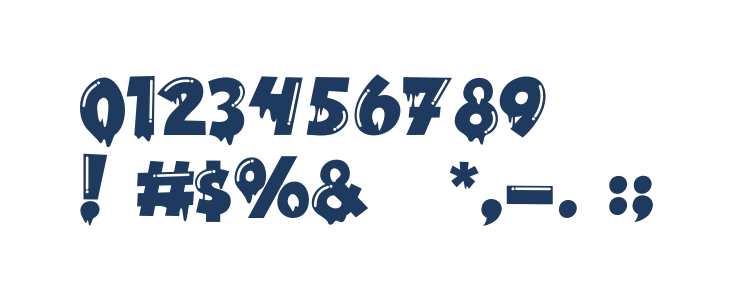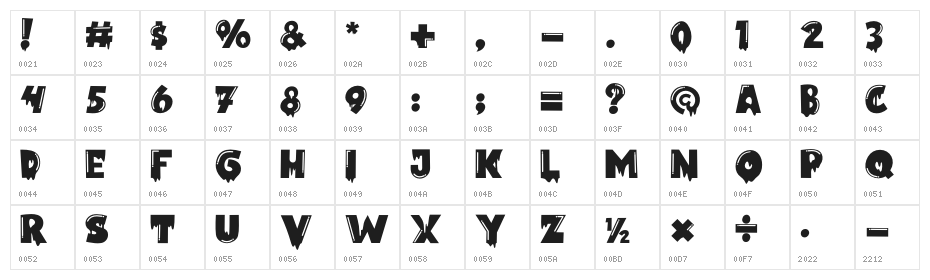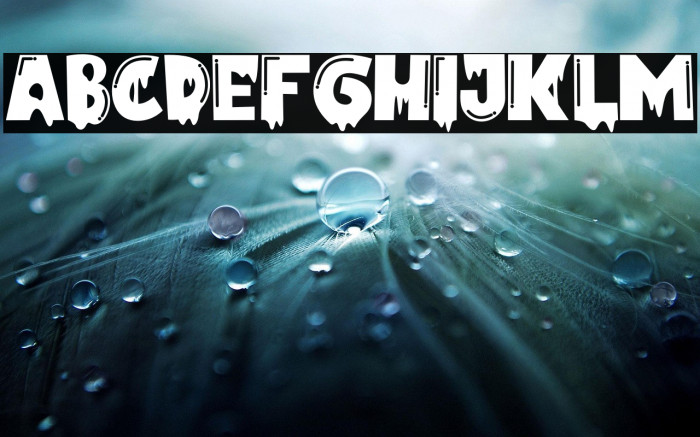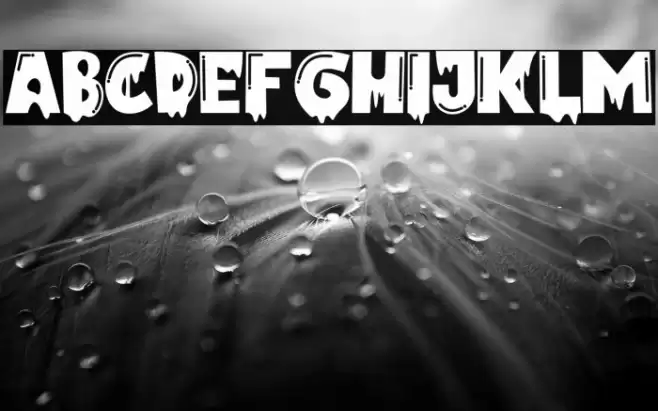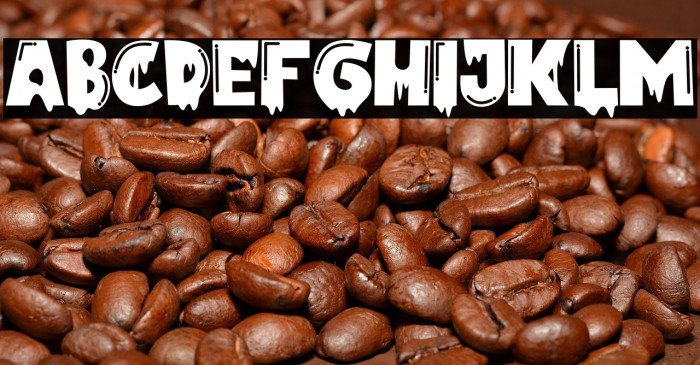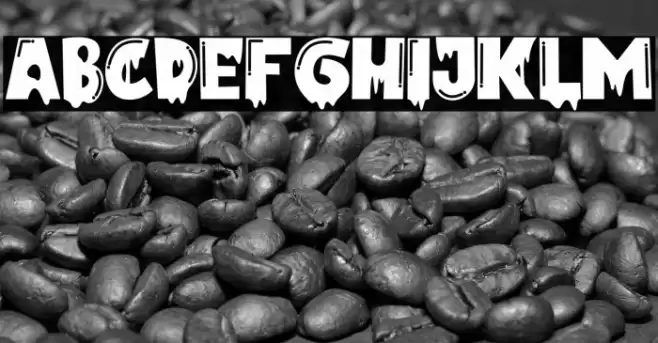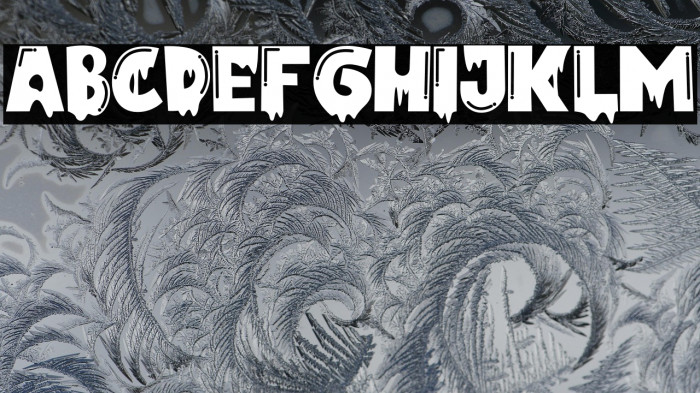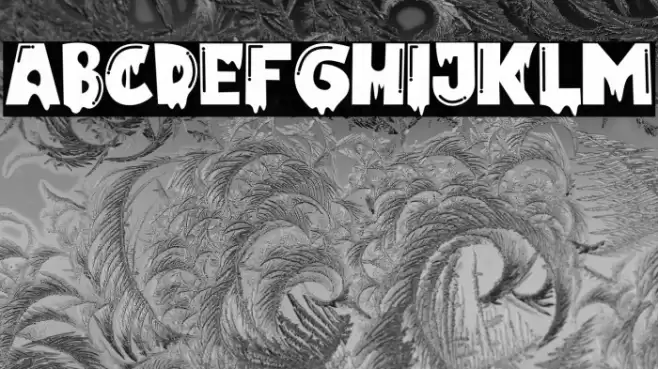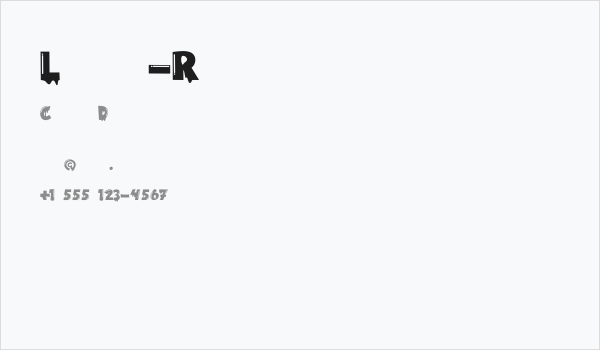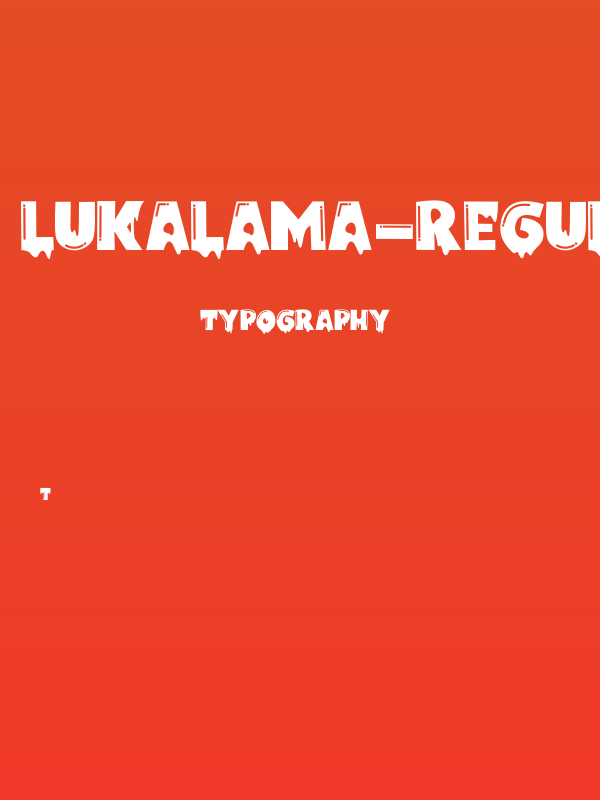
Lukalama-Regular Font
Lukalama-Regular Description
This font features a bold and playful design, characterized by its thick, dramatic strokes and unique dripping effect at the bottom of each character. The uppercase letters are particularly striking, with a strong presence that demands attention. The numbers and special characters maintain this bold style, ensuring consistency across all glyphs. The font's playful nature makes it ideal for creative projects that require a touch of whimsy and boldness. Its unique style is reminiscent of graffiti art, adding an urban and edgy feel to any design.
| Proposed Projects | Ideal for posters, album covers, street art designs, and event flyers. |